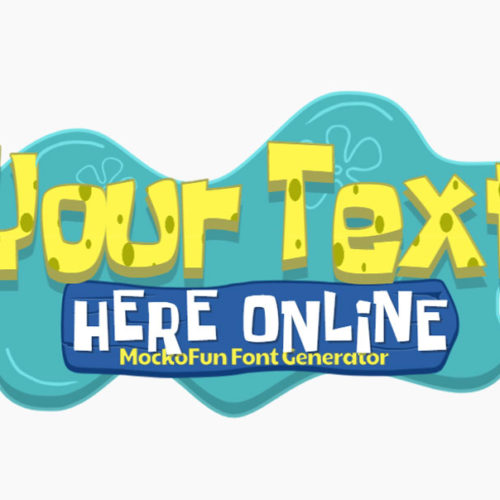
Spongebob Font Generator
Spongebob Font Generator - Whether you're making party invites, creating fun artwork, or adding a whimsical touch to your. If you're a fan of spongebob squarepants, our spongebob font generator is perfect for you. Spongebob fonts are fan creations of your favorite tv show, spongebob squarepants on nickelodeon. Elevate your brand with captivating and unique typography that will leave a lasting. Use the text generator below to convert your text into graphics online with spongebob squarepants font, you can then save the image or click on the embed button to get links to embed the image. Spongebob font generator & download is available free at fontbolt. Try our text generator and create cool graphics for spongebob font, then you can save the font image to your pc, mac,.
Spongebob fonts are fan creations of your favorite tv show, spongebob squarepants on nickelodeon. If you're a fan of spongebob squarepants, our spongebob font generator is perfect for you. Whether you're making party invites, creating fun artwork, or adding a whimsical touch to your. Try our text generator and create cool graphics for spongebob font, then you can save the font image to your pc, mac,. Use the text generator below to convert your text into graphics online with spongebob squarepants font, you can then save the image or click on the embed button to get links to embed the image. Elevate your brand with captivating and unique typography that will leave a lasting. Spongebob font generator & download is available free at fontbolt.
Spongebob font generator & download is available free at fontbolt. Whether you're making party invites, creating fun artwork, or adding a whimsical touch to your. If you're a fan of spongebob squarepants, our spongebob font generator is perfect for you. Elevate your brand with captivating and unique typography that will leave a lasting. Try our text generator and create cool graphics for spongebob font, then you can save the font image to your pc, mac,. Spongebob fonts are fan creations of your favorite tv show, spongebob squarepants on nickelodeon. Use the text generator below to convert your text into graphics online with spongebob squarepants font, you can then save the image or click on the embed button to get links to embed the image.
Use the text generator below to convert your text into graphics online with spongebob squarepants font, you can then save the image or click on the embed button to get links to embed the image. Try our text generator and create cool graphics for spongebob font, then you can save the font image to your pc, mac,. Elevate your brand.
If you're a fan of spongebob squarepants, our spongebob font generator is perfect for you. Spongebob fonts are fan creations of your favorite tv show, spongebob squarepants on nickelodeon. Whether you're making party invites, creating fun artwork, or adding a whimsical touch to your. Spongebob font generator & download is available free at fontbolt. Elevate your brand with captivating and.
Use the text generator below to convert your text into graphics online with spongebob squarepants font, you can then save the image or click on the embed button to get links to embed the image. Spongebob fonts are fan creations of your favorite tv show, spongebob squarepants on nickelodeon. Whether you're making party invites, creating fun artwork, or adding a.
Spongebob font generator & download is available free at fontbolt. Use the text generator below to convert your text into graphics online with spongebob squarepants font, you can then save the image or click on the embed button to get links to embed the image. If you're a fan of spongebob squarepants, our spongebob font generator is perfect for you..
If you're a fan of spongebob squarepants, our spongebob font generator is perfect for you. Elevate your brand with captivating and unique typography that will leave a lasting. Whether you're making party invites, creating fun artwork, or adding a whimsical touch to your. Spongebob font generator & download is available free at fontbolt. Spongebob fonts are fan creations of your.
Spongebob SVG Font Bundle Spongebob Font PNG Alphabet Etsy
Spongebob font generator & download is available free at fontbolt. Try our text generator and create cool graphics for spongebob font, then you can save the font image to your pc, mac,. Whether you're making party invites, creating fun artwork, or adding a whimsical touch to your. Elevate your brand with captivating and unique typography that will leave a lasting..
Spongebob Font Generator & Text Effects
Spongebob fonts are fan creations of your favorite tv show, spongebob squarepants on nickelodeon. Spongebob font generator & download is available free at fontbolt. Use the text generator below to convert your text into graphics online with spongebob squarepants font, you can then save the image or click on the embed button to get links to embed the image. Whether.
SpongeBob Font Alphabet SVG PNG DXF Etsy
Use the text generator below to convert your text into graphics online with spongebob squarepants font, you can then save the image or click on the embed button to get links to embed the image. Elevate your brand with captivating and unique typography that will leave a lasting. Whether you're making party invites, creating fun artwork, or adding a whimsical.
SpongeBob Font SVG, PNG, DXF
Whether you're making party invites, creating fun artwork, or adding a whimsical touch to your. Try our text generator and create cool graphics for spongebob font, then you can save the font image to your pc, mac,. Spongebob fonts are fan creations of your favorite tv show, spongebob squarepants on nickelodeon. Use the text generator below to convert your text.
Use The Text Generator Below To Convert Your Text Into Graphics Online With Spongebob Squarepants Font, You Can Then Save The Image Or Click On The Embed Button To Get Links To Embed The Image.
Spongebob fonts are fan creations of your favorite tv show, spongebob squarepants on nickelodeon.